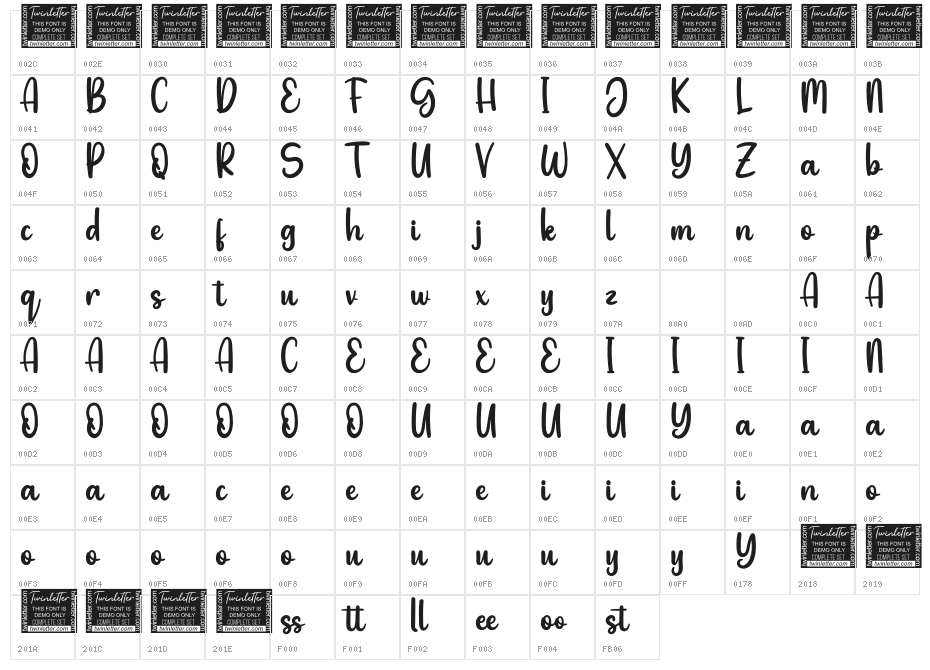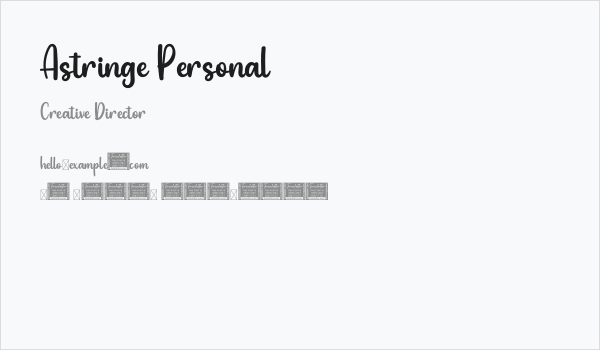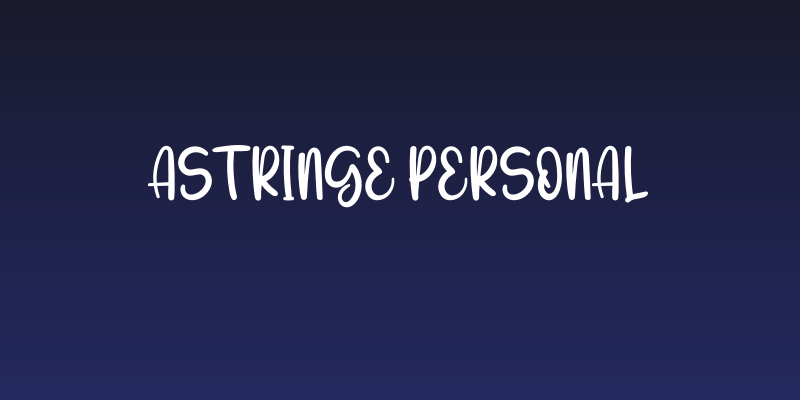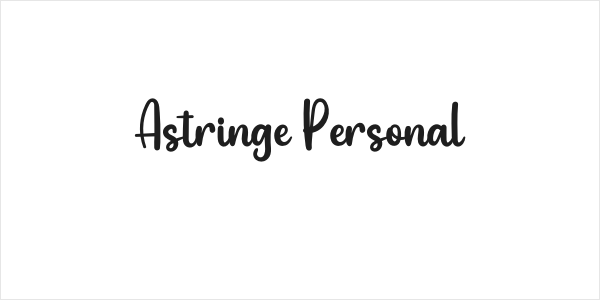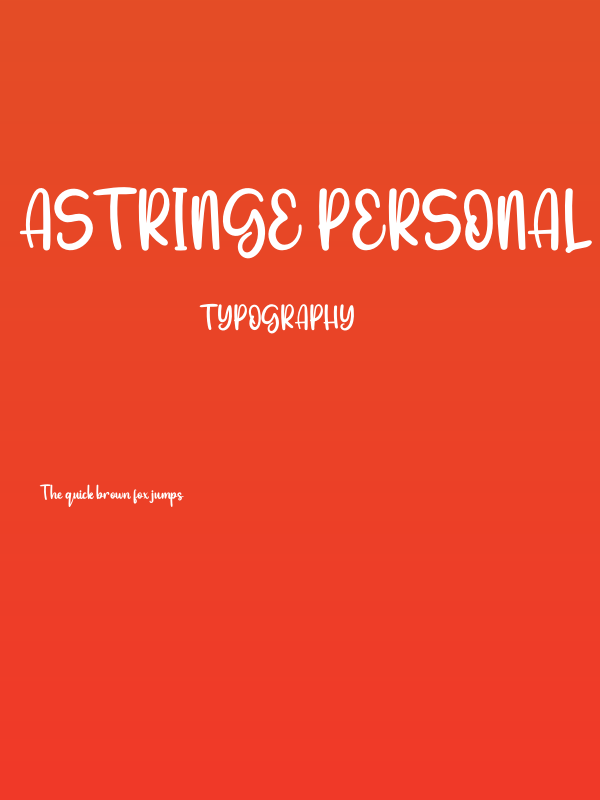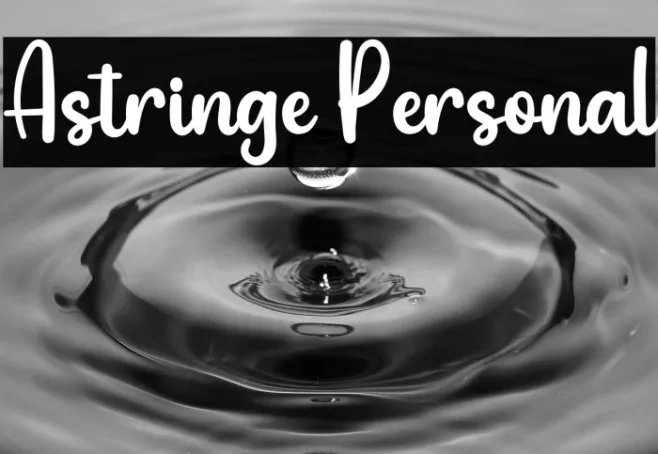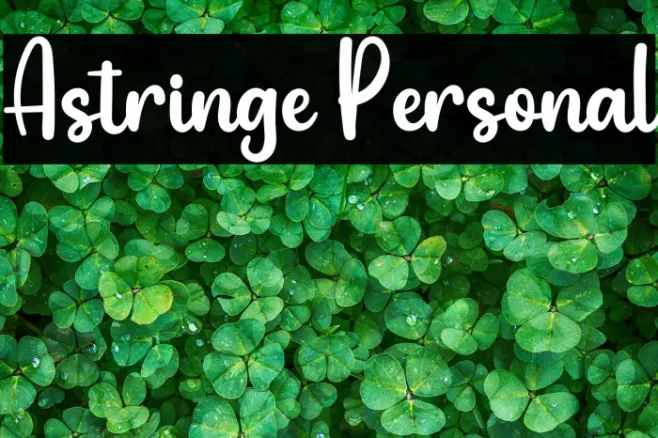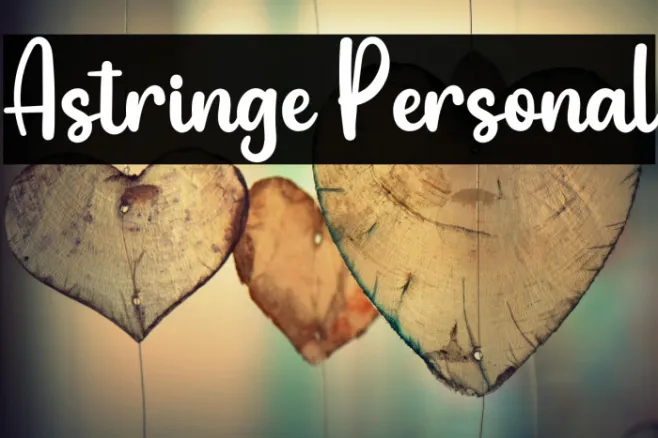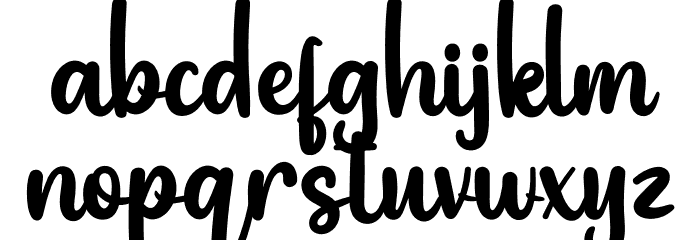
Astringe Personal Font
Astringe Personal Description
This font features a playful and bold handwritten style with a modern twist. The uppercase letters are tall and slightly narrow, with a consistent stroke width that gives them a clean and cohesive appearance. The lowercase letters maintain the same playful character, with some letters featuring unique loops and curves that add to the font's charm. The overall design is casual yet stylish, making it suitable for a variety of creative projects. The font's boldness ensures readability while its unique style adds a touch of personality.
| Proposed Projects | Ideal for greeting cards, posters, branding, and social media graphics. |